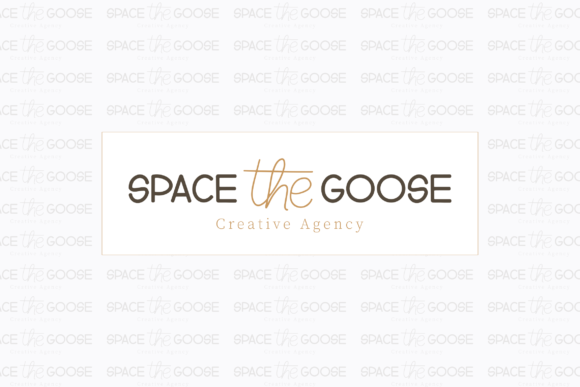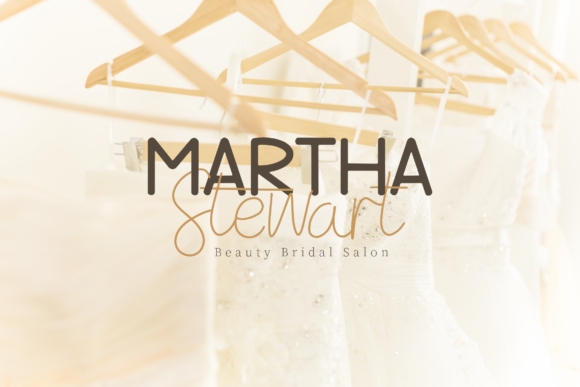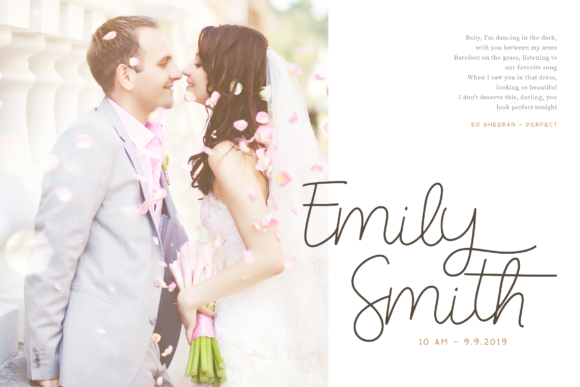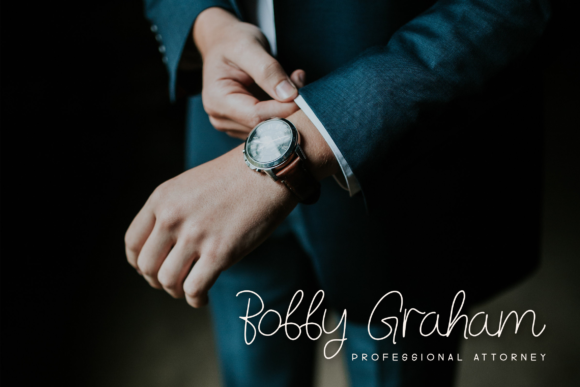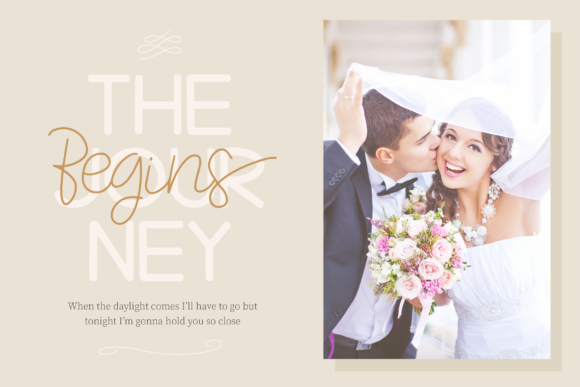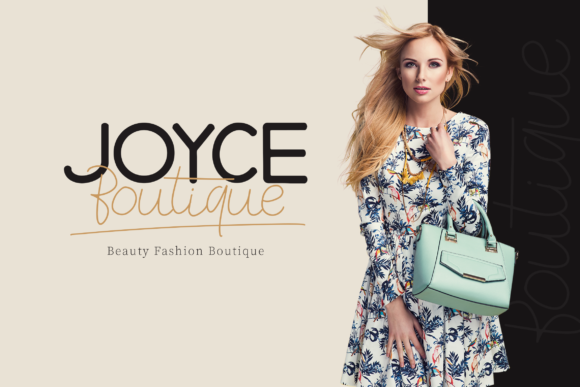
Introducing Dear Audrey Font: Elevate Your Designs with Elegance
Are you on the hunt for a font that adds a touch of sophistication and elegance to your designs? Look no further than the Dear Audrey Font. This beautiful handwritten font duo is perfect for designers and crafters seeking to create visually stunning projects that leave a lasting impression.
What is Dear Audrey Font?
Dear Audrey is a pretty handwritten font duo that boasts a unique and elegant feel. The font comes in two styles, allowing you to mix and match to create a customized look that suits your project’s needs. Whether you’re working on a branding project, crafting a beautiful wedding invitation, or designing a stylish blog, Dear Audrey Font is the perfect choice.
Key Features of Dear Audrey Font
- Handwritten Elegance: Dear Audrey Font features a beautiful, handwritten script that adds a touch of elegance to any project.
- Duo Font Style: The font comes in two styles, allowing you to use both fonts together to create a unique and customized look.
- Unique and Versatile: Dear Audrey Font is perfect for a wide range of projects, from branding and advertising to crafting and DIY.
- Easily Readable: Despite its elegant feel, Dear Audrey Font is highly readable, making it perfect for body text and headlines.
Why Choose Dear Audrey Font?
So, why should you choose Dear Audrey Font for your next project? Here are just a few reasons:
- Adds a Touch of Sophistication: Dear Audrey Font adds a touch of sophistication and elegance to any project, making it perfect for high-end branding and advertising.
- Customizable: With two font styles to choose from, you can customize your project to suit your needs and create a unique look.
- Perfect for Crafters: Dear Audrey Font is also perfect for crafters, providing a beautiful and elegant font for handmade projects, such as wedding invitations and party decorations.
How to Use Dear Audrey Font
To get the most out of Dear Audrey Font, try the following:
- Pair with Bold Fonts: Pair Dear Audrey Font with bold fonts to create a striking contrast and add visual interest to your design.
- Use for Headlines and Body Text: Use Dear Audrey Font for both headlines and body text to create a cohesive and elegant look.
- Experiment with Colors: Experiment with different colors to find the perfect combination that suits your project’s needs.
Here are some tips and tricks for designers and crafters looking to get the most out of Dear Audrey Font:
- Use for Branding Projects: Use Dear Audrey Font for branding projects, such as logos and business cards, to add a touch of elegance and sophistication.
- Perfect for Wedding Invitations: Dear Audrey Font is perfect for wedding invitations and other formal events, providing a beautiful and elegant font that sets the tone for the occasion.
- Great for DIY Projects: Dear Audrey Font is also great for DIY projects, such as crafting and scrapbooking, providing a beautiful and elegant font that adds a personal touch.
In conclusion, Dear Audrey Font is a beautiful handwritten font duo that adds a touch of elegance and sophistication to any project. With its unique and versatile design, Dear Audrey Font is perfect for designers and crafters seeking to create visually stunning projects that leave a lasting impression.